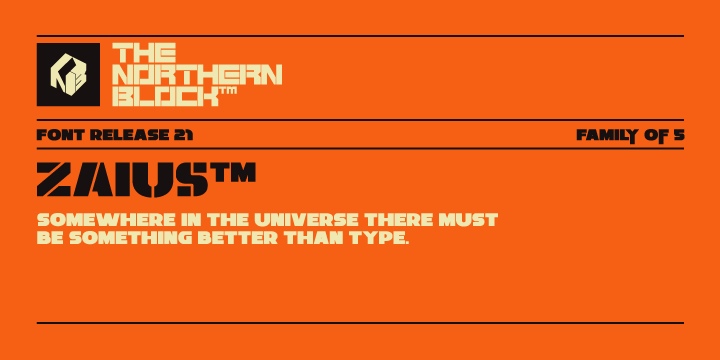
Zaius Font
Zaius Font is perfect for primate research institute branding, evolutionary biology publications, natural history museum exhibitions, wildlife conservation campaigns, anthropological research materials, zoo and safari park signage, documentary film titles, scientific journal headers, archaeological expedition graphics, and educational materials about human origins. This distinctive typeface excels in applications where scientific authority, evolutionary themes, and primal intelligence are central brand messaging elements.
What makes Zaius Font exciting is its unique ability to bridge primitive authenticity with scholarly sophistication through letterforms that capture both the raw intelligence of our evolutionary ancestors and the refined analysis of modern science. The font features robust character construction with subtle organic details that evoke ancient wisdom while maintaining the precision required for serious scientific communication. Its authoritative yet approachable personality makes it perfect for organizations that study human evolution, primate behavior, and the fascinating connections between past and present intelligence.
The Zaius Font family typically includes Regular and Bold weights, often accompanied by condensed variations that accommodate dense scientific documentation and research publication formats. Many versions feature extended character sets with scientific symbols, mathematical notation marks, and specialized punctuation commonly used in evolutionary biology and anthropological research. Some collections include alternate characters with enhanced primitive styling and decorative elements inspired by ancient tools and archaeological artifacts.
Whether you're developing brand identities for research institutions, creating educational materials about human evolution, or designing content that explores the fascinating journey from primitive origins to modern intelligence, Zaius Font Free Download provides the scholarly authority that resonates with audiences interested in understanding our evolutionary heritage. Its commanding presence makes it ideal for academic institutions and research organizations that study the complex relationships between intelligence, evolution, and human development. The font's ability to convey both scientific rigor and accessible fascination makes it particularly valuable for museums, research facilities, and educational publishers seeking to communicate complex evolutionary concepts while inspiring curiosity about our shared ancestral journey.